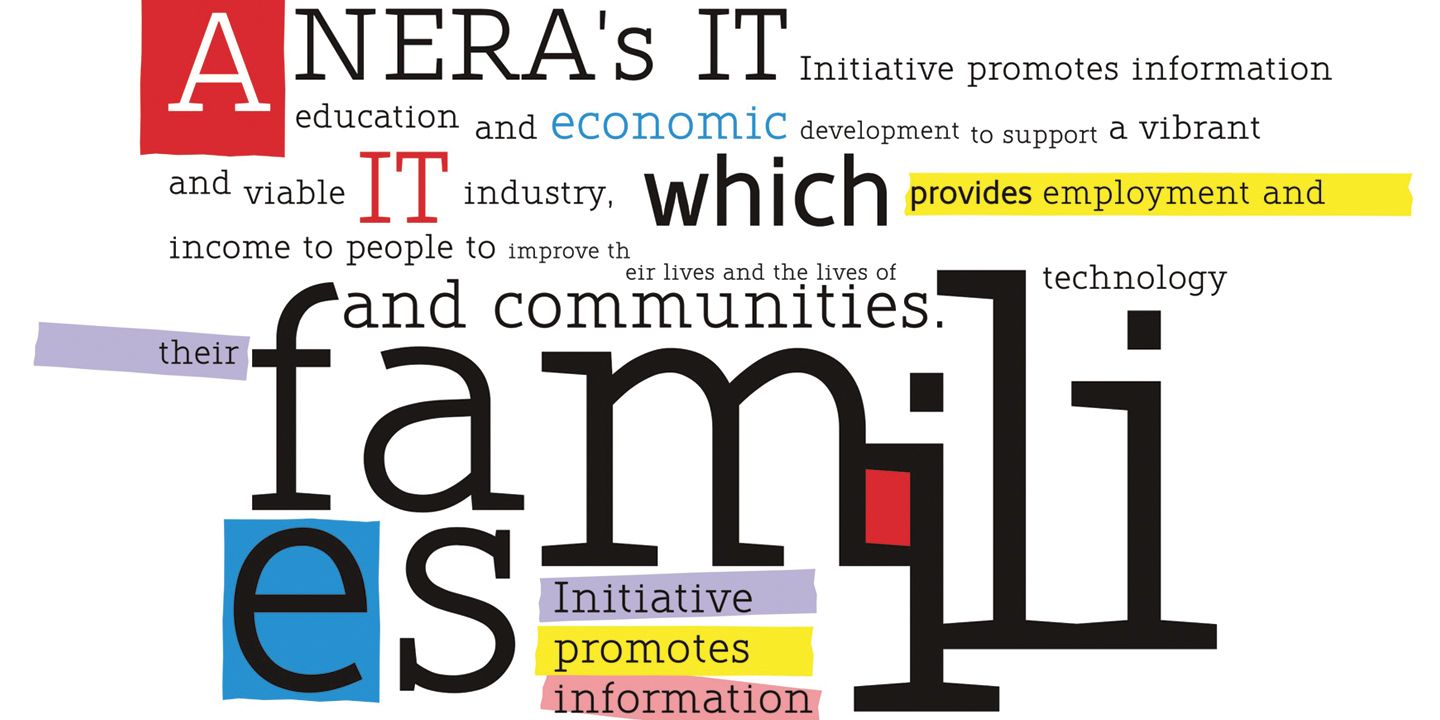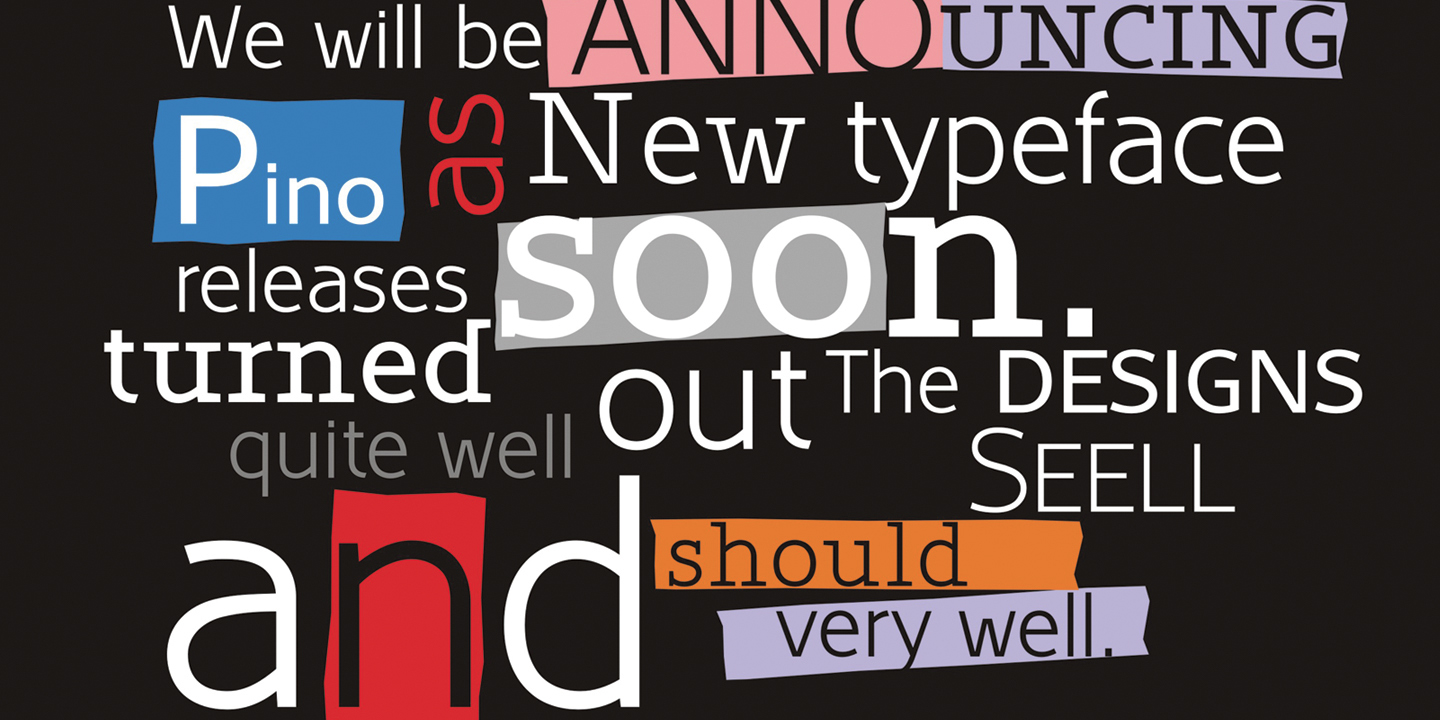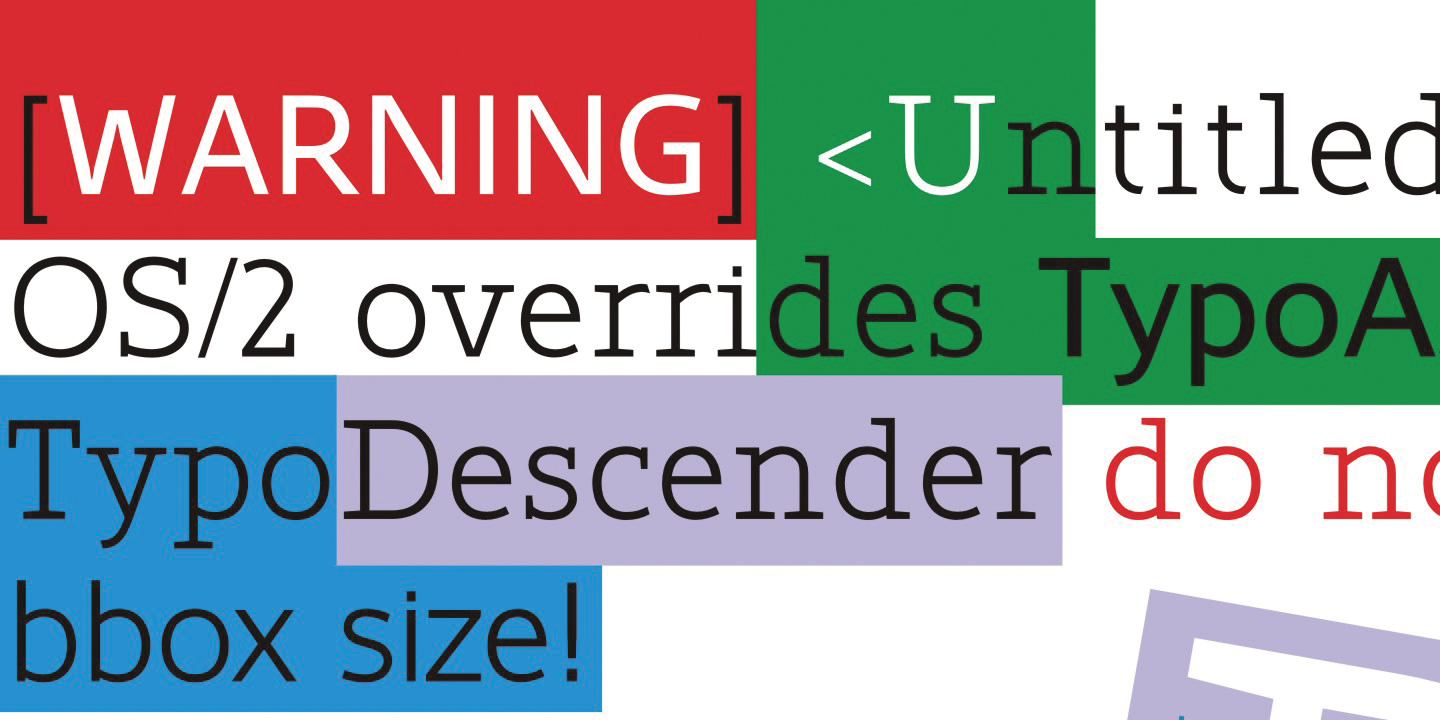
Belco, designed by Slobodan Jelesijević, was the first font family released by Tour de Force Font Foundry. Belco is elegant and useful for all kinds of publications such as books, magazines, catalogs and brochures. With a wide range of possibility and smooth personal touch, the Belco font family is ideal for longer texts, titles and typography exercises.